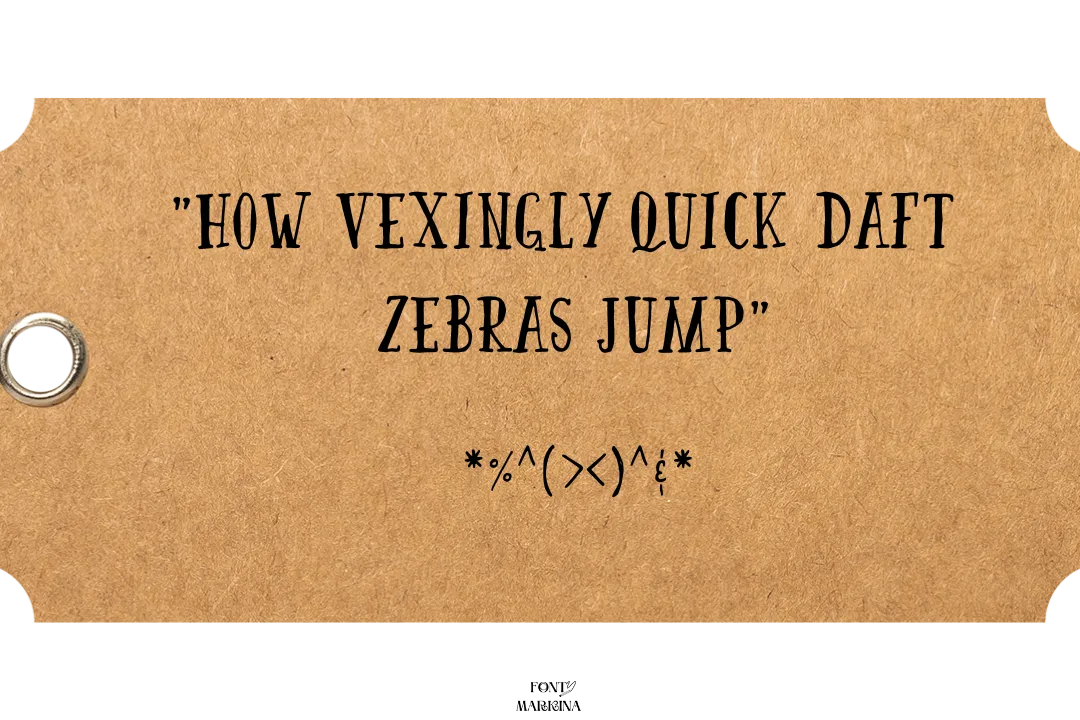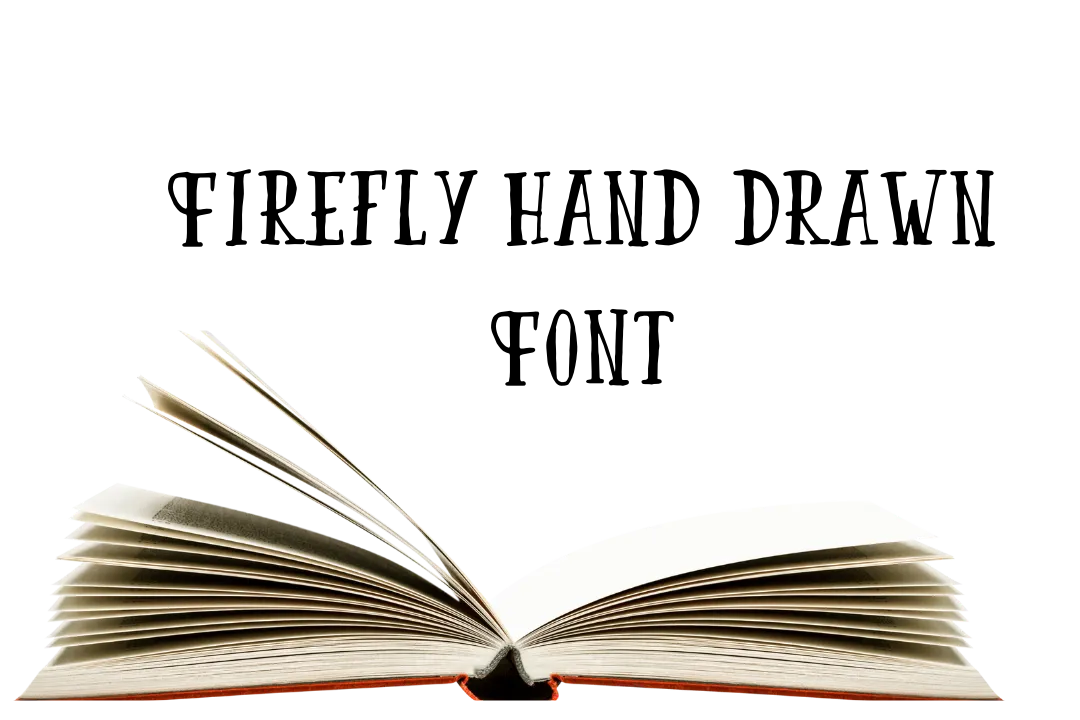
Here, we discuss Firefly Hand Drawn Font in detail. This incredible texture has 32 special weights that make it more trendy and classic. This classic texture falls in the classifications of the Slab Serif category.
This typography was developed by a popular Monotype designers team known under the name Carl Crossgrove, Charles Nix, and Juan Villanueva. A total of 600 glyphs are attainable in this family. This texture is obtainable in the TTF file structure.
The online text generator tool of this family is very advantageous for a bunch of graphic designs. You can also check the similarity of this family which is American typewriter bold font and is very attractive.
Usage of Firefly Hand-Drawn Font
For business plans and functions this typeface is on the top-level typefaces. A huge variety of companies and department uses this typography and earn a lot of fame. Different cards like business and weddings, billboards, and covers of textbooks, can be designed neatly by using this family.
Here, more interestingly you can also make the pairing of this font with Benguiat font and then notice its results at the end. For special types of signatures, this typography is very effective. You can also utilize this font for labels, tags, and templates. In designing logos this texture is the very best choice.
Firefly Hand Drawn Font View
| Type | Slab Serif |
What type of font is Firefly Hand Drawn?
This texture falls in the category of a slab serif family. This typography has 32 classic weights.
Who is the creator of Firefly Hand Drawn?
Carl Crossgrove, Charles Nix, and Juan Villanueva. are a team of monotype designers who took the charge of font designs.